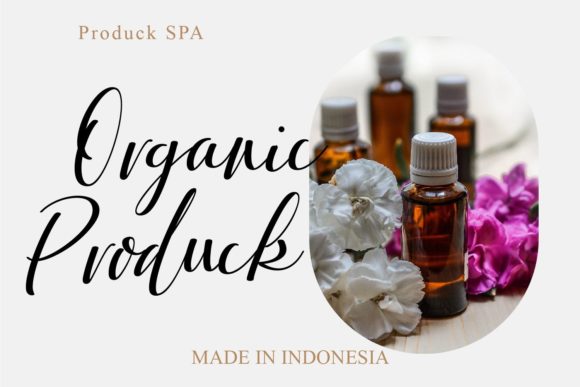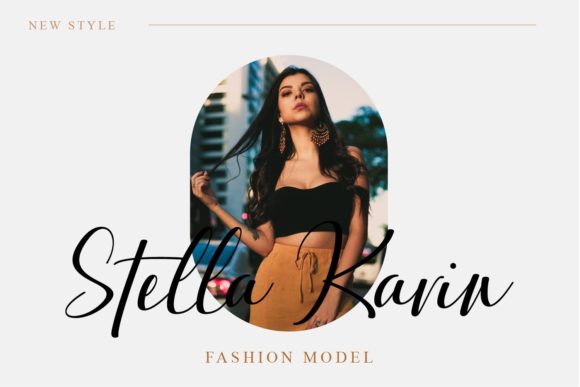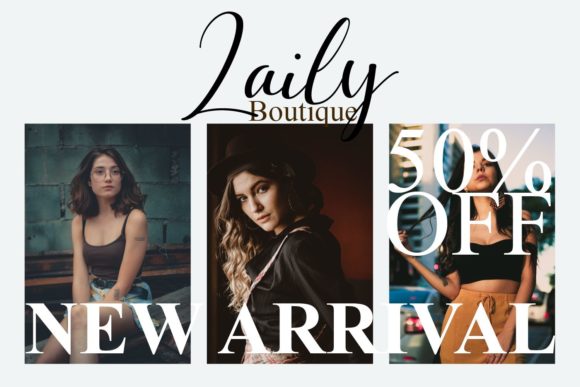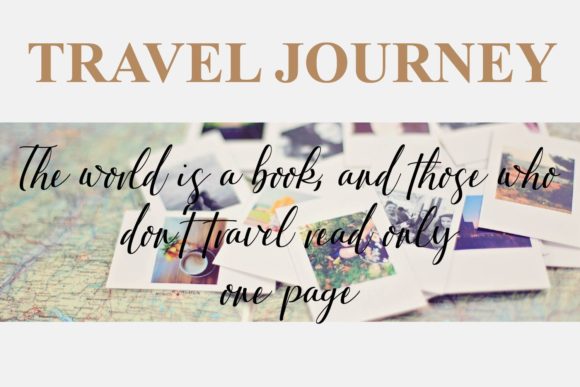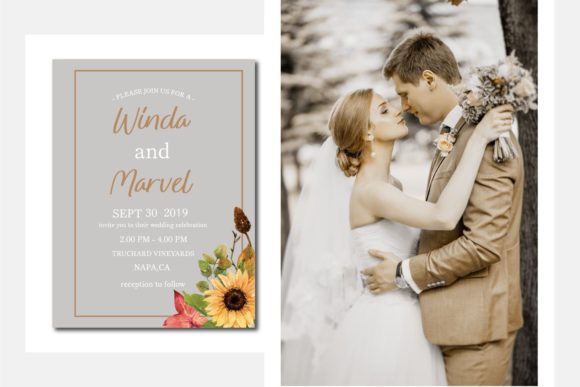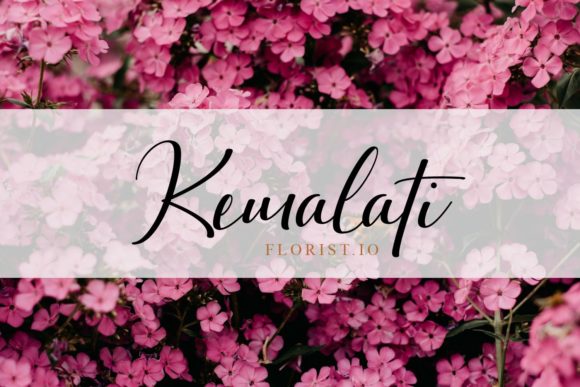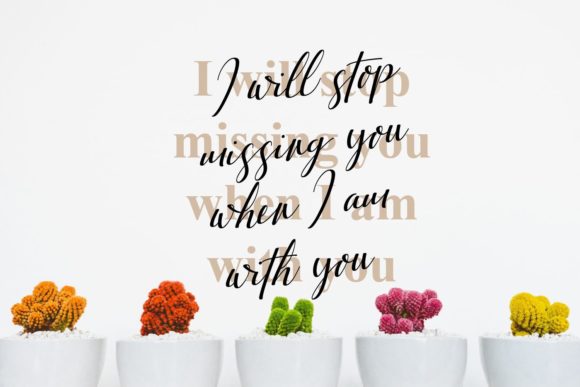
Ardinta Font
About Ardinta Font
Ardinta is a stunning script font that effortlessly combines beauty, relaxation, and modernity. With its classy, elegant, and relaxed look, it is an excellent choice for various design purposes, including logos, branding, invitations, stationery, wedding designs, social media posts, and more.
The font’s flowing and organic letterforms exude a sense of calm and grace. The characters are meticulously crafted to achieve a balanced and harmonious appearance. Ardinta’s smooth curves and subtle details create a visually pleasing and inviting aesthetic.
Whether you’re creating a logo for a boutique brand, designing elegant wedding invitations, or crafting engaging social media posts, Ardinta’s versatility allows it to adapt to different styles and themes. Its modern look adds a contemporary touch to any design while maintaining a sense of elegance and sophistication.
Ardinta also offers a range of OpenType features, including ligatures, alternates, and swashes, which provide additional customization options. These features allow you to add beautiful flourishes and unique touches to your designs, making them truly one-of-a-kind.
The font’s broad range of applications speaks to its versatility and appeal. From high-end branding to romantic wedding designs, Ardinta can effortlessly enhance your projects and make them visually captivating. Its ability to convey a relaxed and modern vibe makes it a valuable asset for designers who seek to create stylish and inviting designs.
In summary, Ardinta is a beautiful and relaxed script font that embodies class, elegance, and modernity. Its versatility and range of OpenType features make it suitable for a wide range of design projects. Let Ardinta elevate your designs and infuse them with a sense of relaxation and contemporary allure.